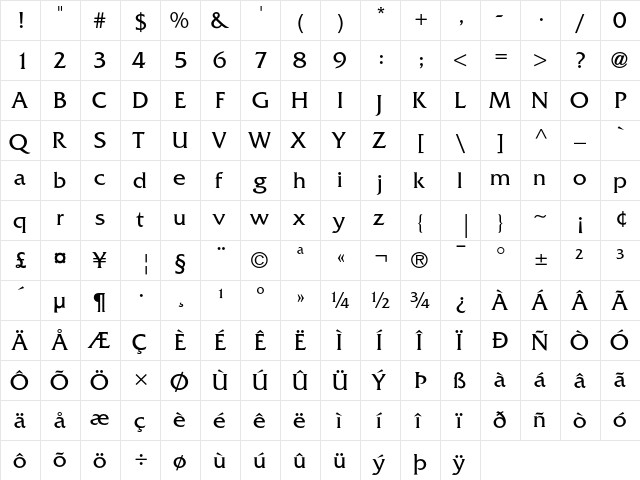
Friz Quadrata Regular Font Preview
Friz Quadrata Regular
Design Context for Friz Quadrata Typeface
Friz Quadrata is a composed and adaptable typeface that performs quietly and consistently across a wide range of design contexts.
Pro Tip: Pair Friz Quadrata with a font of contrasting weight or personality to build a more expressive typographic hierarchy.